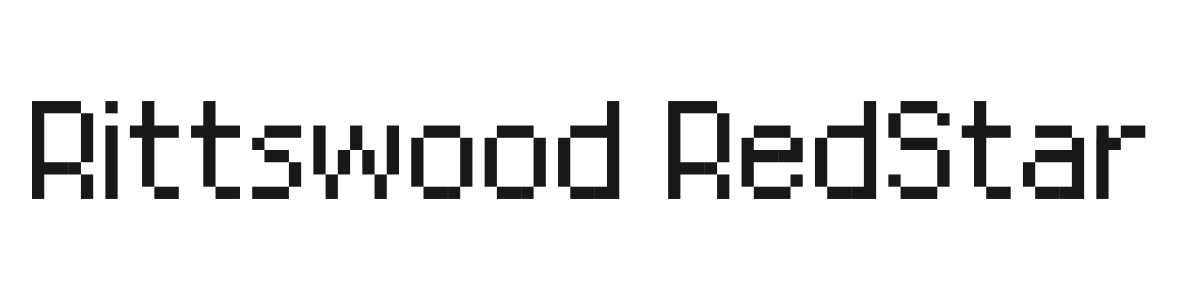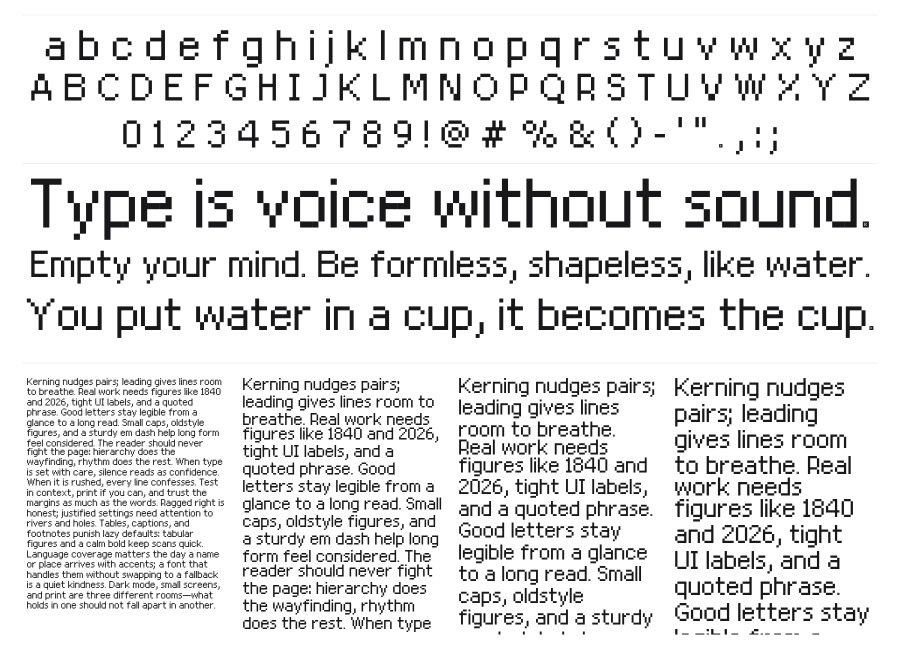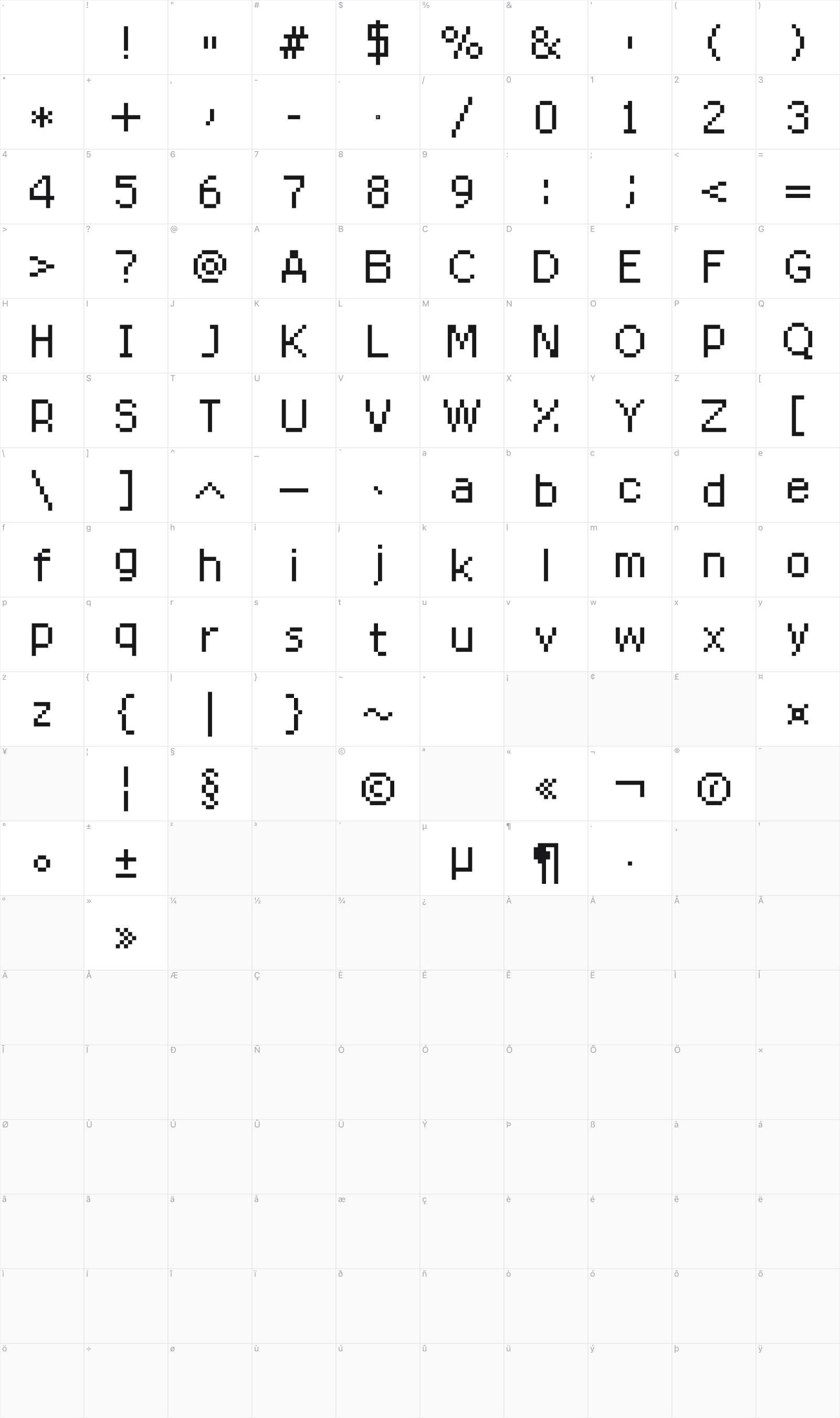
Rittswood RedStar
Rittswood RedStar is a bold pixel bitmap font built on a strict square grid, channeling the raw aesthetic of early computer screens and 8-bit hardware. Every stroke is constructed from uniform rectangular blocks with no contrast or curvature, giving it a blunt, utilitarian character. It reads loudly at large sizes and carries an unmistakable retro-digital personality.